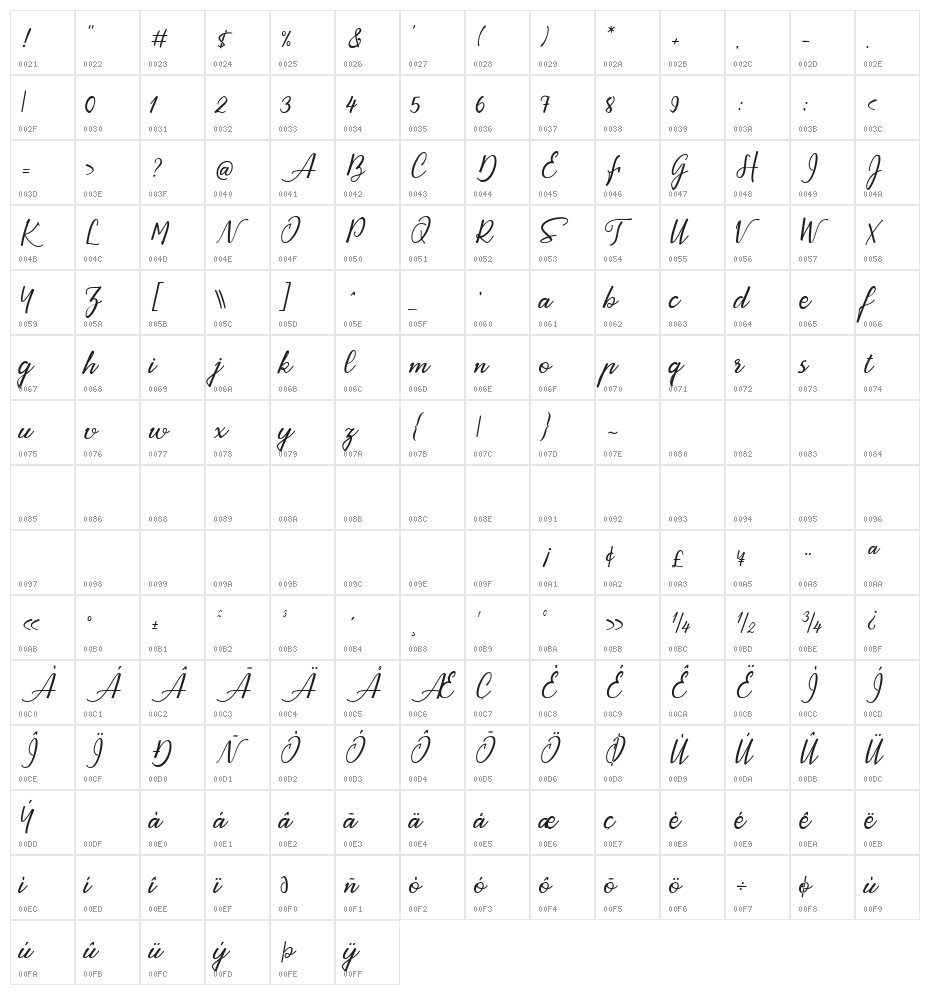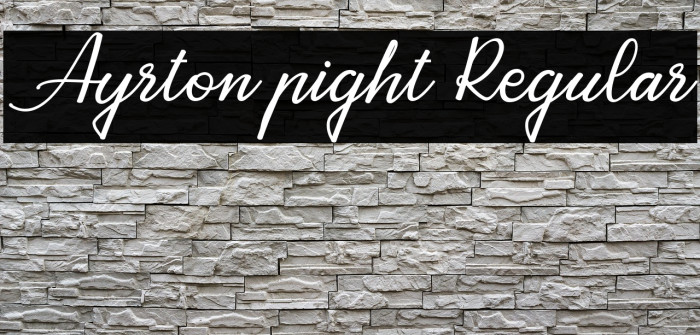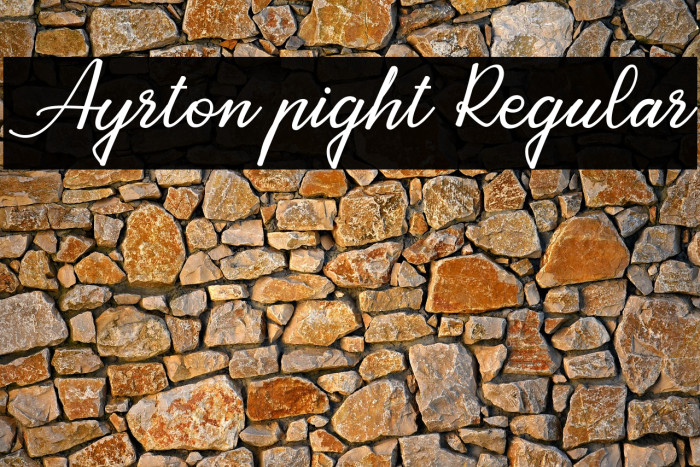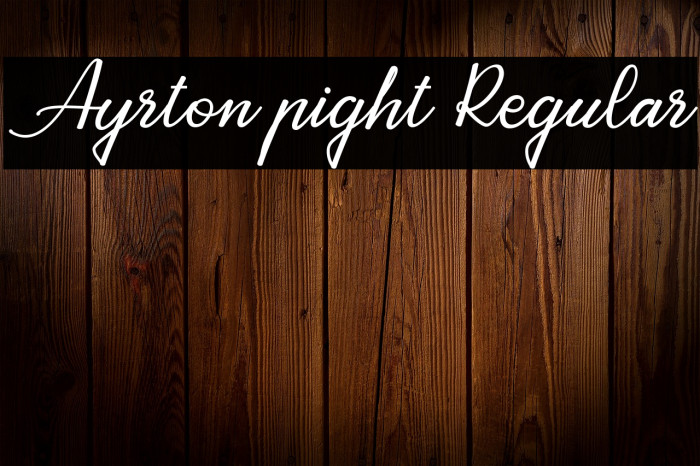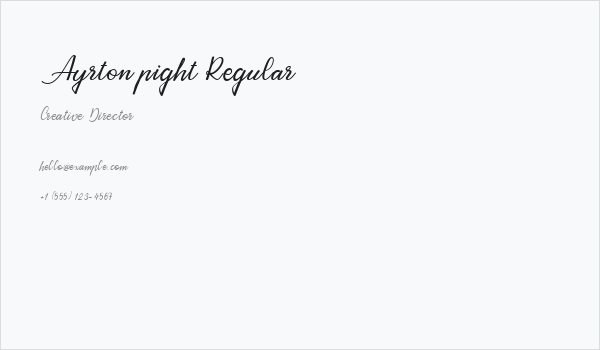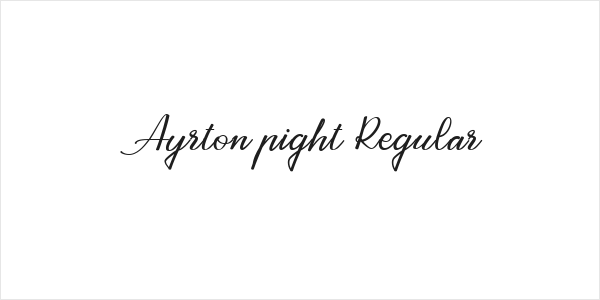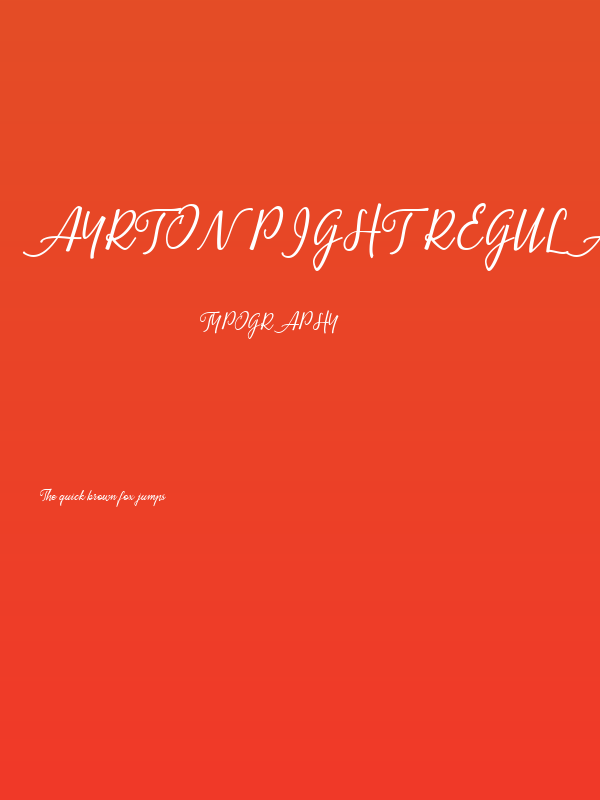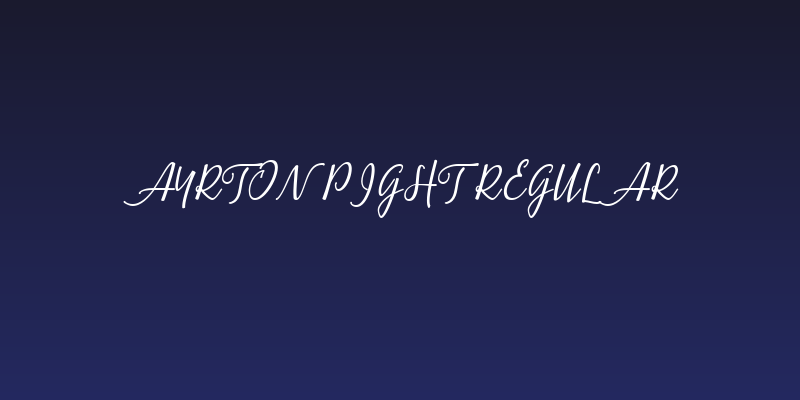
Ayrton pight Regular Font
Ayrton pight Regular Description
This font exudes elegance and fluidity, characterized by its cursive script style. The letters are interconnected with smooth, flowing strokes that create a sense of movement and grace. The uppercase letters are slightly more ornate, with flourishes that add a touch of sophistication. The lowercase letters maintain a consistent rhythm, enhancing readability while preserving the decorative nature. Numbers and special characters are designed to match the overall aesthetic, ensuring a cohesive look across all text. This font is perfect for projects that require a personal, handwritten touch.
Overall StyleElegant, Decorative
Use CaseLogos, Invitations, Personal branding
Proposed ProjectsIdeal for wedding invitations, greeting cards, personal branding, and elegant logo designs.